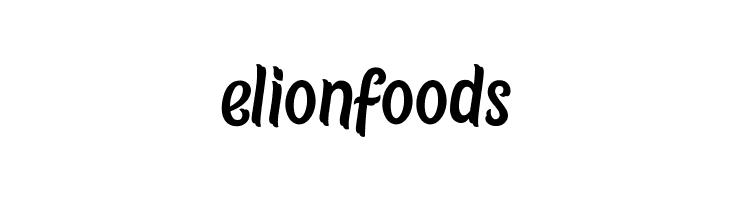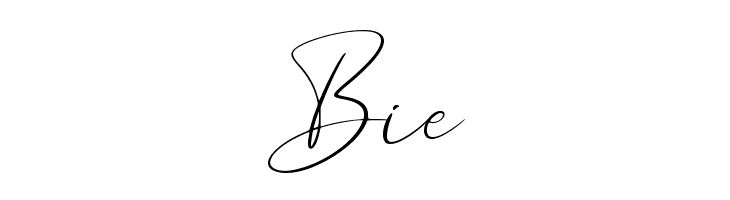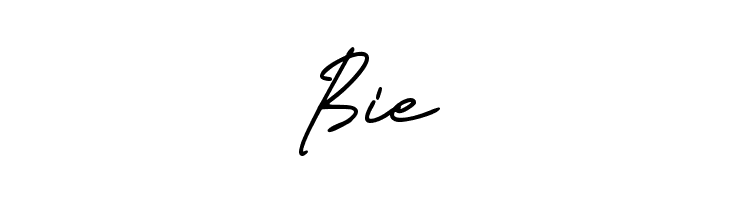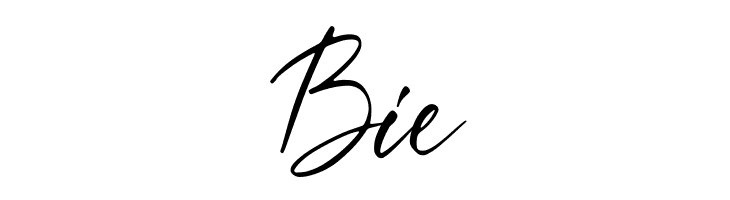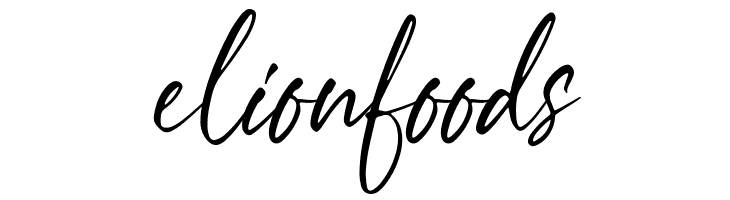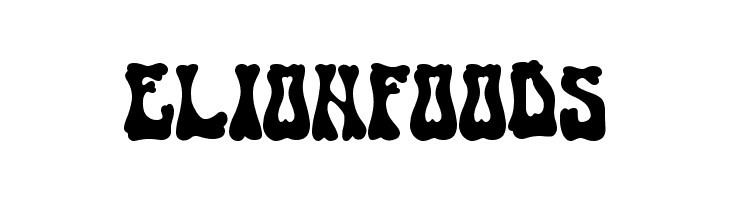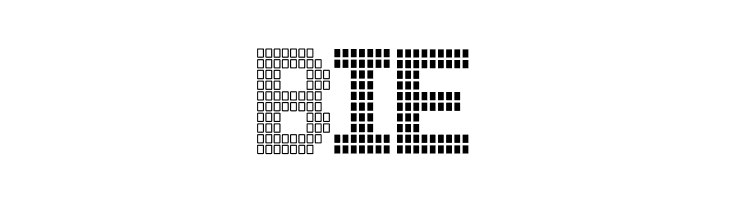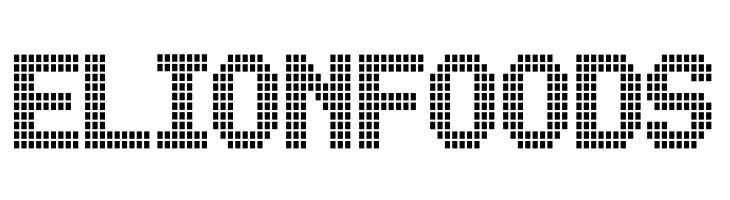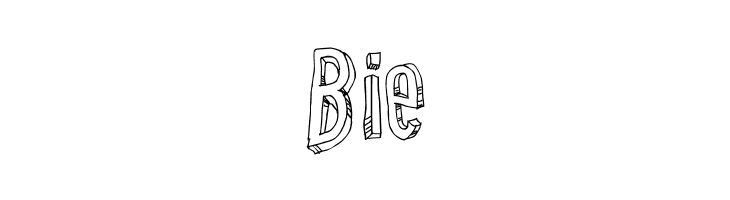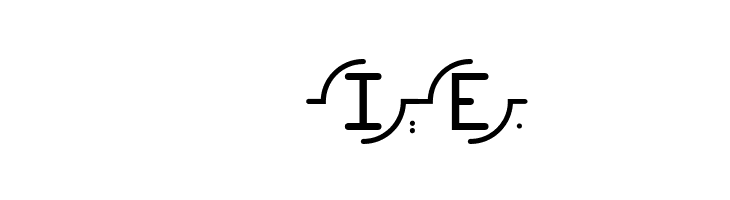
• Rekkoy
• Relief BD
A playful, hand-drawn 3D font with bold, outlined characters.
• Rellieva
A playful and decorative font with ornate uppercase and simpler lowercase letters.
• Rellyan Charlotte
An elegant, flowing cursive font with thin, graceful strokes.
• Renegade Master
• Renegade Mistress
• Renitta
A fluid, cursive script font with a natural handwritten style.
• Reno Casino
A bold, playful font with a hand-drawn, dynamic style.
• Restiane Personal Use Only !!!
A cursive, handwritten-style font with smooth, connected letters and medium contrast.
• Retro Bones
A bold, playful font with a retro, bone-like design.